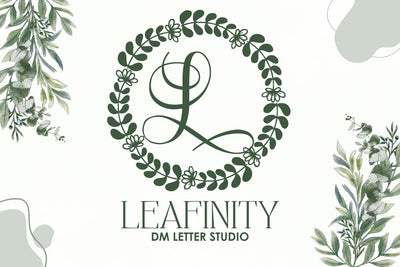
Leafinity Monogram
Leafinity Monogram – Flowing Botanical Monogram Font with Natural Grace
Leafinity Monogram is a refined serif monogram font wrapped in flowing botanical accents. Each uppercase character is adorned with graceful vine and leaf illustrations, creating an elegant and organic look perfect for nature-inspired designs, branding, wedding decor, or personalized gifts.
Elegant Botanical Accents: Each letter features delicate vine and leaf flourishes, adding a timeless, organic feel.
Monogram Ready: Designed for initials, logos, invitations, or crafting projects that call for a personalized touch.
Perfect for Nature-Inspired Projects: Ideal for garden-themed weddings, eco-friendly branding, spa packaging, and more.